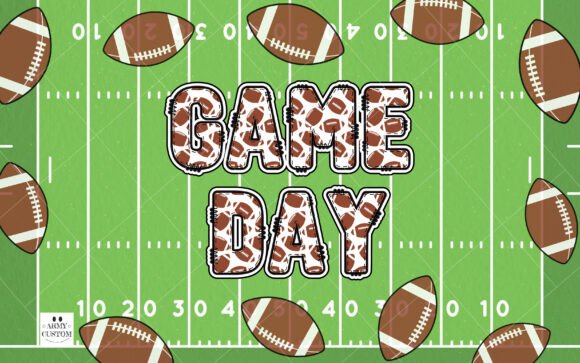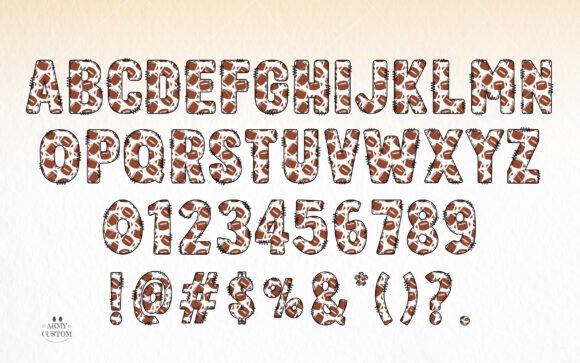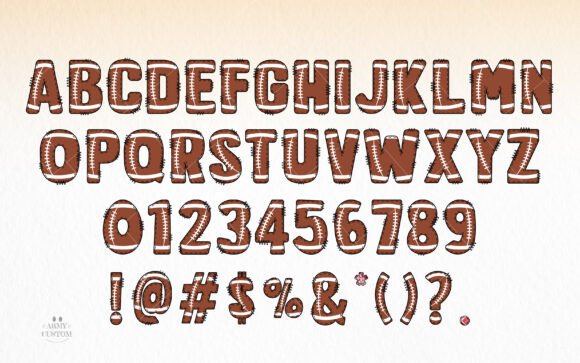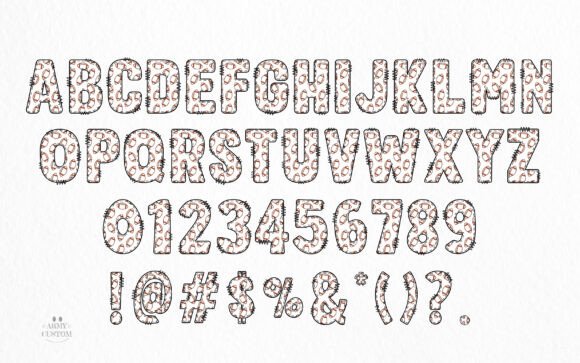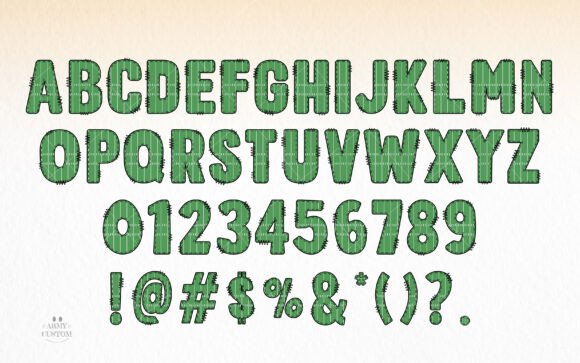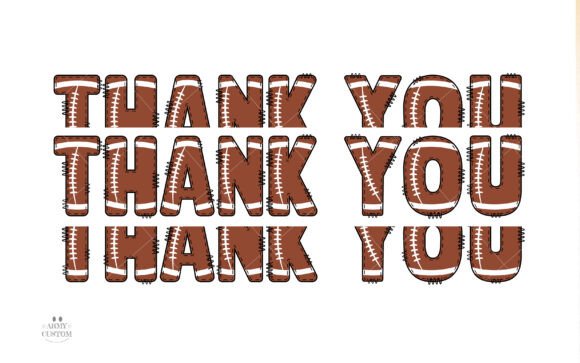
Unleashing the Power of American Football Bundle Font
I’ll never forget the time I was working on a project to create a poster for a local American football tournament. As I sat in front of my computer, sipping on a cold coffee, I realized that I was struggling to find the perfect font to capture the essence of the game. The font had to be bold, dynamic, and convey a sense of strength and agility. That’s when I stumbled upon the American Football Bundle Font, and it completely transformed my design.
A Personal Review: What I Love and What I Don’t
- ✅ Unique and Creative Design: The American Football Bundle Font is unlike any other font I’ve ever seen. Its athletic underpinnings and innovative design make it a standout in any project.
- ✅ Perfect for Sports-Themed Designs: This font is specifically designed for American football, making it a quintessential choice for any sports-themed project.
The American Football Bundle Font was conceived with a unique blend of creativity and passion. The designer, inspired by the beloved American pastime, set out to create a font that would capture the essence of American football. With a deep understanding of the sport and its culture, the designer crafted a font that exudes dynamism and competitive spirit.